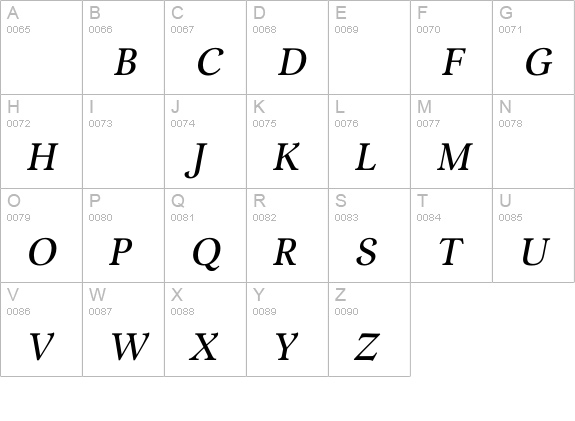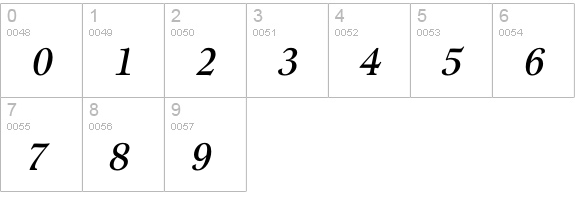
LombaMedIta Font Details
LombaMedIta is a visually striking and elegant font that effortlessly blends modern sophistication with timeless charm. Its graceful curves and balanced letterforms make it a versatile choice for a wide range of design projects, from branding to editorial design. The font exudes a sense of refinement and style that is sure to elevate any creative endeavor. What sets LombaMedIta apart is not just its aesthetic appeal, but also its accessibility. This beautiful font is available for free download at FontsMarket.com, making it easy for designers and creatives to access and use in their projects without any barriers. Whether you're working on a professional branding project or a personal design endeavor, LombaMedIta offers a touch of elegance and class that is sure to make a lasting impression. Elevate your designs with LombaMedIta and unleash your creativity with this stunning and freely available font.